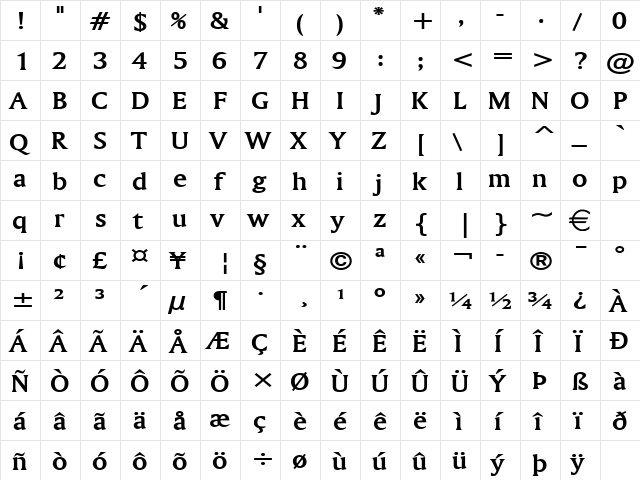
AmerettoWide Bold
Design Context for AmerettoWide Typeface
AmerettoWide offers clean, dependable letterforms without strong stylistic allegiance, making it a practical choice for designers who need flexibility. The heavy weight commands attention and anchors typographic hierarchies.